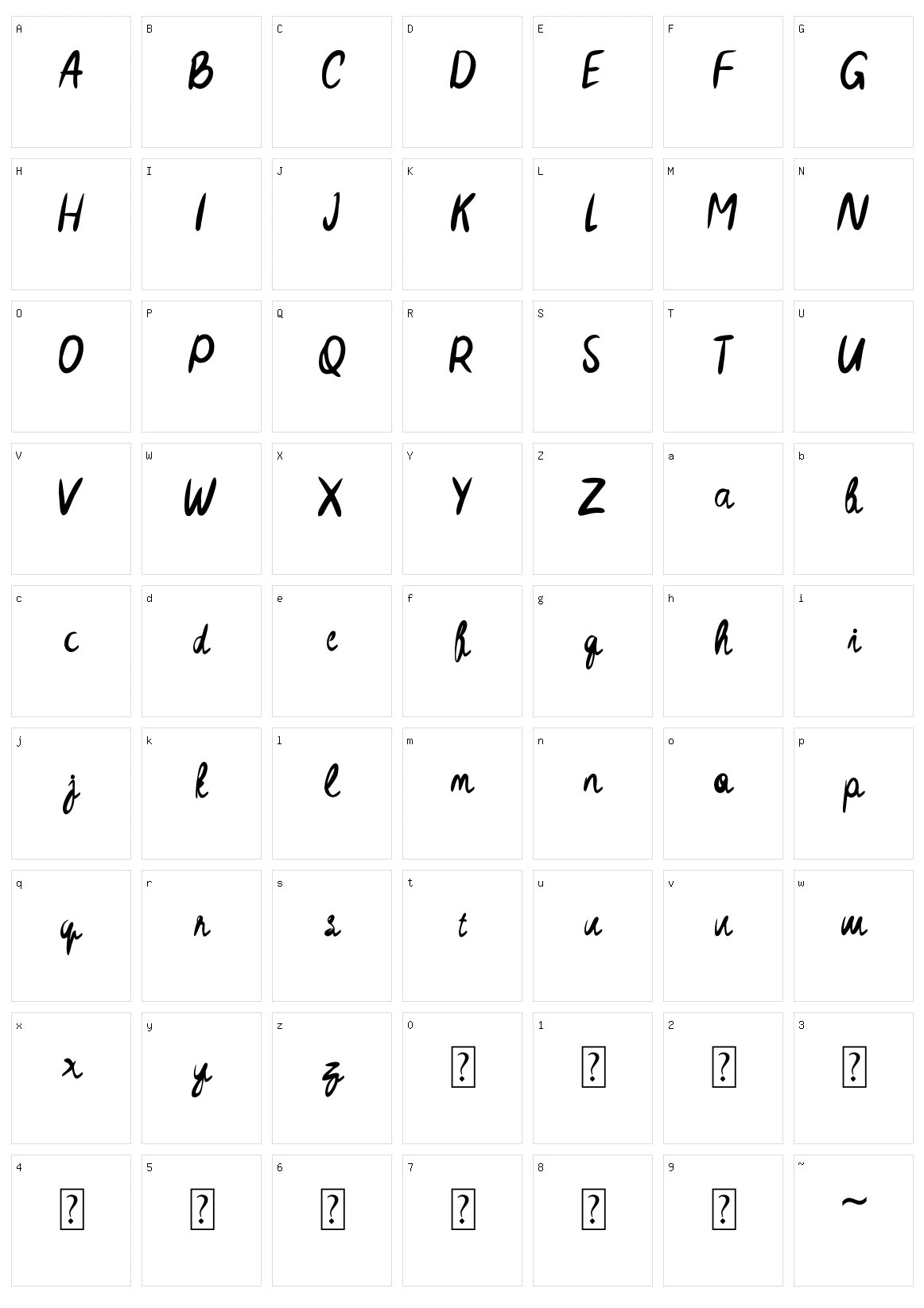
The free font Traveler is carefully designed by 3w protype, showcasing a thoughtful balance of creativity and usability and falls under the Script font style. When you download the ZIP file, it contains only 20.96 KB of font files, making it lightweight and quick to download. Please review the license details below to understand permitted usage and distribution rights. If license information is not available, we recommend using this font for personal projects only or contacting the author directly for commercial usage permissions.